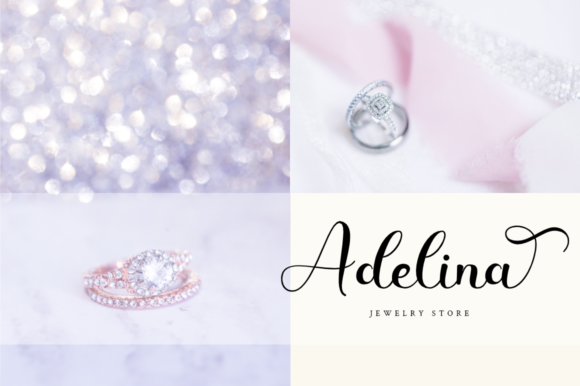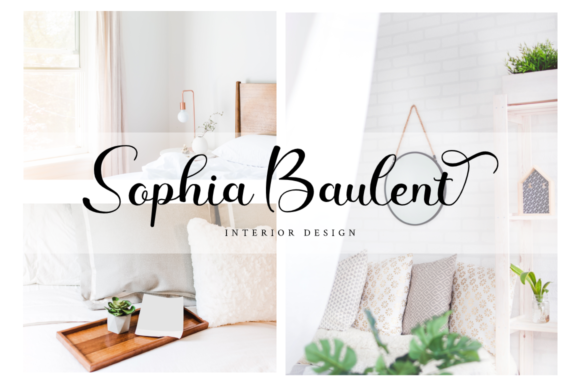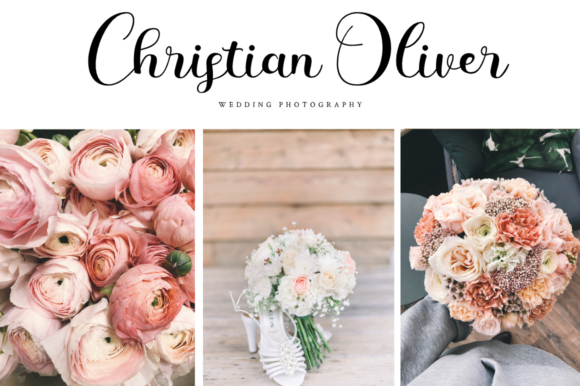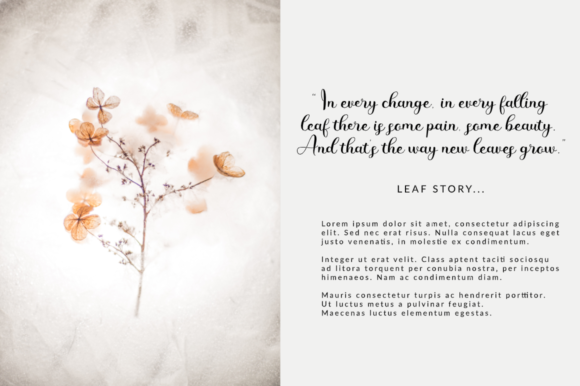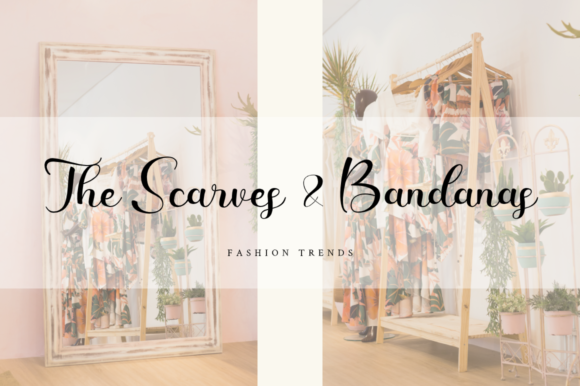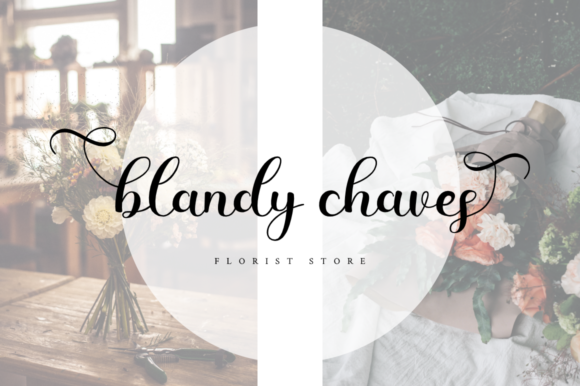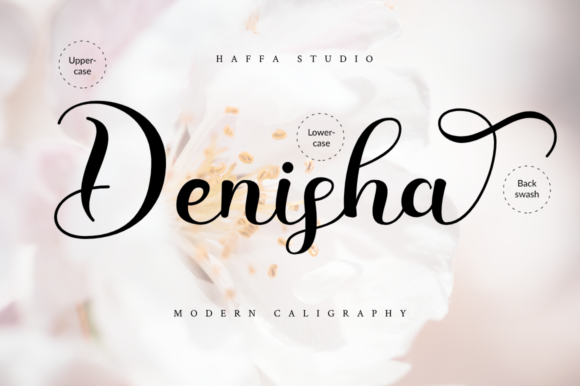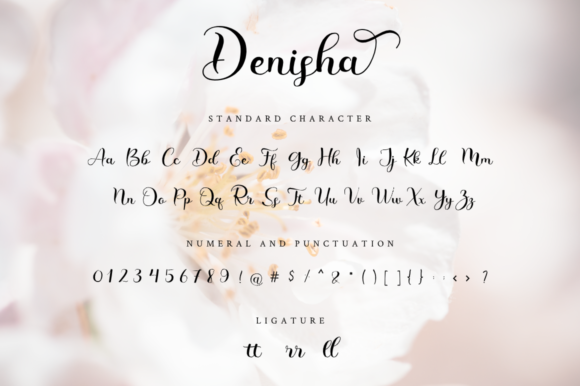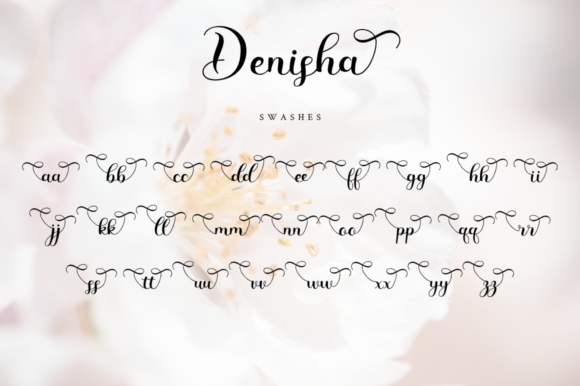
HomePersonal Use FreeDenisha Personal Use Free Denisha FacebookTwitterPinterestWhatsApp 1 of 10 About Denisha Font Denisha is a bold script font that is classy and sweet. It is perfectly suited for a wide range of design projects. DOWNLOAD NOW People also explored Chomolatte Font Cappuccino Coffee Font Krofin Font Hodgeson Font Bicycle Wheel Font The Overthinkers Font Wicked Graveyard Font Estilias Font Journey to Thailand Font 203 0 TagsDenisha Font Previous articleBeattingvileNext articleAvagan LEAVE A REPLY Cancel reply Comment: Please enter your comment! Name:* Please enter your name here Email:* You have entered an incorrect email address! Please enter your email address here Website: Save my name, email, and website in this browser for the next time I comment. Personal Use Free Sellena Brush Font Personal Use Free Read more about this font Rasiday Personal Use Free Read more about this font Lovetle Personal Use Free Read more about this font Squealer Personal Use Free Read more about this font BLOG To increase your work productivity, choose the most readable fonts. In today's fast-paced work environment, where digital communication and information consumption are integral to our daily routines, the choice of fonts can significantly impact... The 10 Best Handwriting Fonts to Add Personality to Your Designs Best Fonts for T-Shirt Design – Top 2025 Picks Elegant Wedding Invitation Fonts – Handwritten & Script Fonts